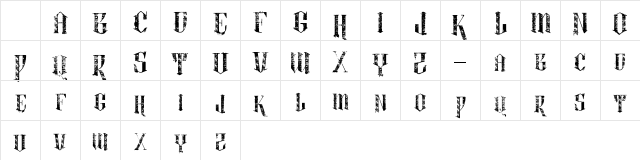
vtks lightness 2 is a composed and adaptable typeface that performs quietly and consistently across a wide range of design contexts. Its slender proportions lend an understated elegance to any composition.